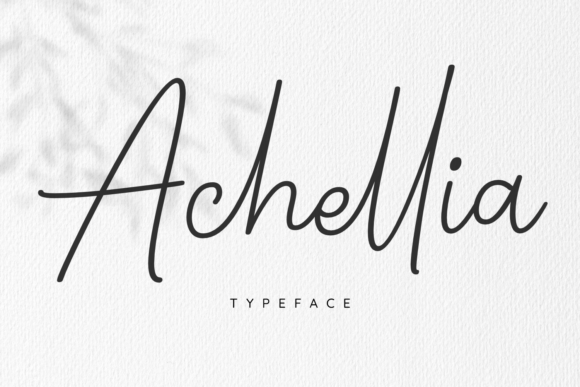
The Elegant Achellia Font: Elevate Your Designs with Flowing Script Style
Have you ever been in the middle of a design project, and suddenly, you’re stuck on finding the perfect font? I recall a recent experience where I was working on a wedding invitation design, and my client specifically asked for a script font that exuded elegance and charm. After scouring through numerous font libraries, I stumbled upon the beautiful Achellia font. Its splendid script style, featuring characters that flow beautifully into each other, instantly won my heart! In this article, I’ll share my experience with Achellia, its features, and how to make the most of this gorgeous font in your creative projects.
An Honest Review of Achellia Font
What I Love About Achellia ✨
• 💫 Elegant and charming script style that’s perfect for creative projects
• ✅ Beautifully flowing characters that connect seamlessly
• 🎨 Highly versatile and suitable for various design applications, from wedding invitations to branding materials
• 🔍 Extensive OpenType features, glyphs, and stylistic alternates for added creativity
• ⚠️ Limited availability of bold or heavy weights, which might not be suitable for designs requiring strong emphasis
• ⚠️ Some characters may require manual adjustment for optimal spacing and alignment
The Story Behind Achellia Font
Achellia was designed by a talented type designer who aimed to create a script font that embodies elegance, charm, and versatility. Inspired by traditional calligraphy and modern digital design, Achellia’s creator carefully crafted each character to flow beautifully into each other, resulting in a stunning font that’s perfect for creative projects.
Q: What type of projects is Achellia suitable for?
Achellia is a versatile font suitable for various design applications, including wedding invitations, branding materials, packaging design, and more.
Q: Is Achellia available in multiple weights?
Achellia may have limited weight options, but it’s essential to check the font’s packaging or documentation for specific details on available weights and styles.